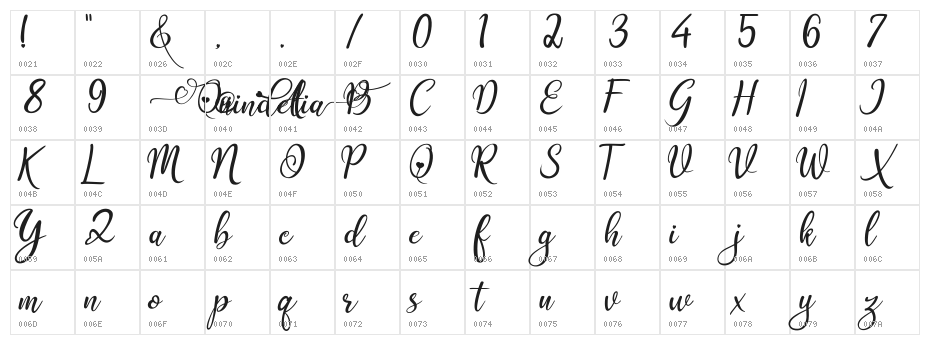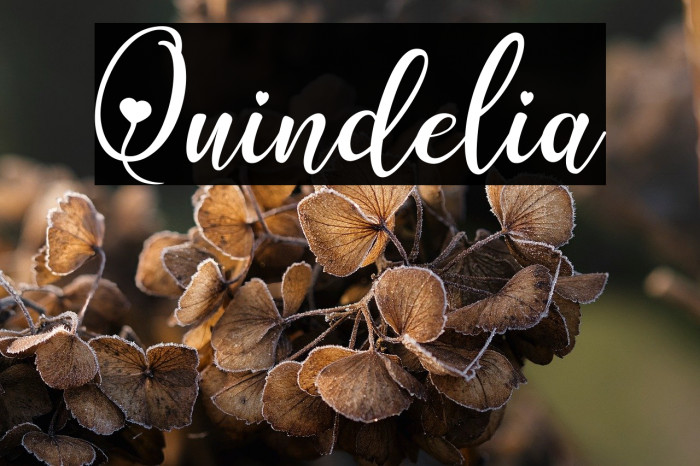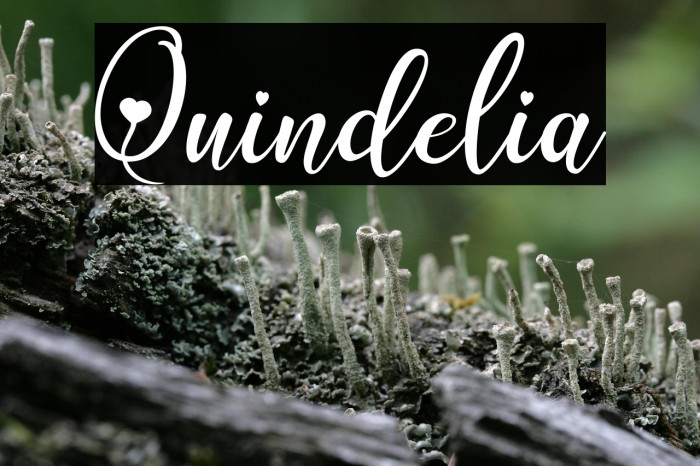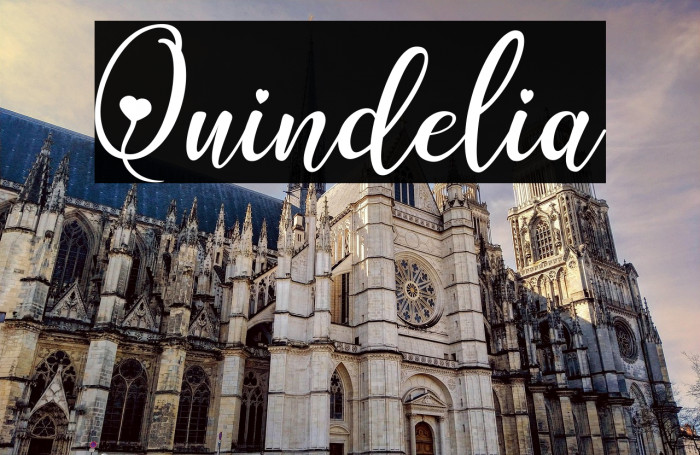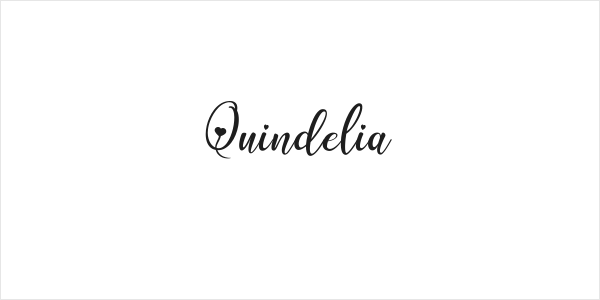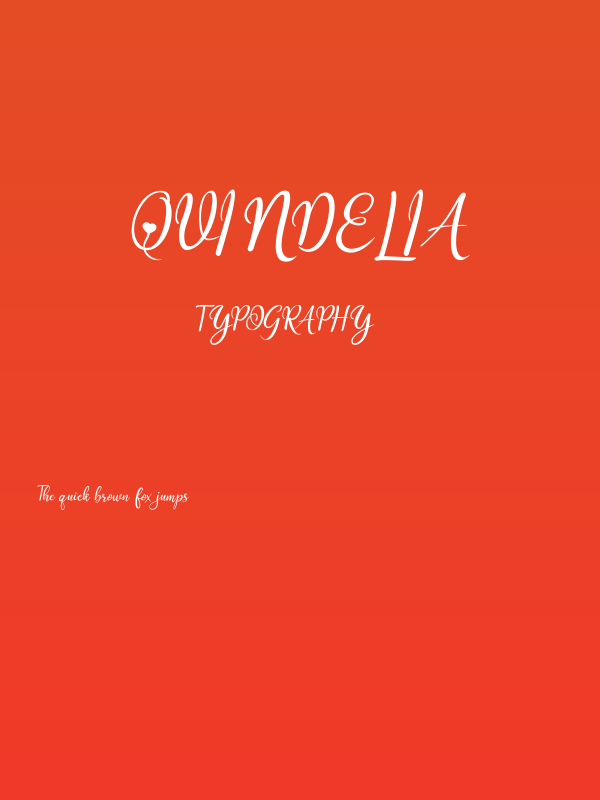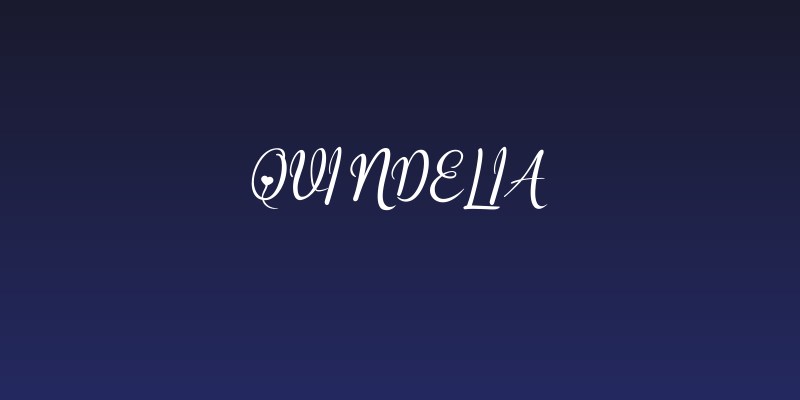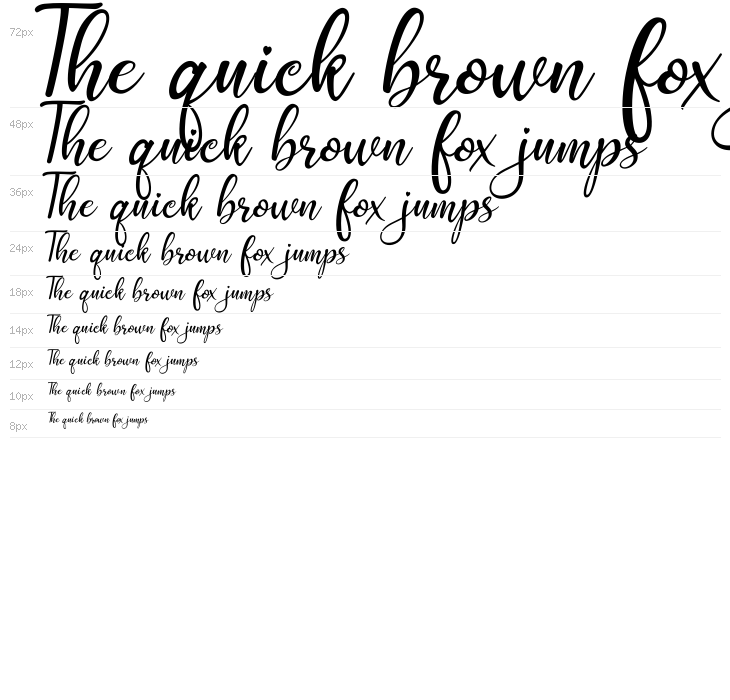
Quindelia Font
| Gesamtstil | Elegant |
| Anwendungsfall | Logos, Invitations, Decorative text |
| Vorgeschlagene Projekte | Ideal for wedding invitations, greeting cards, branding, and logo design where a personal and artistic touch is desired. |